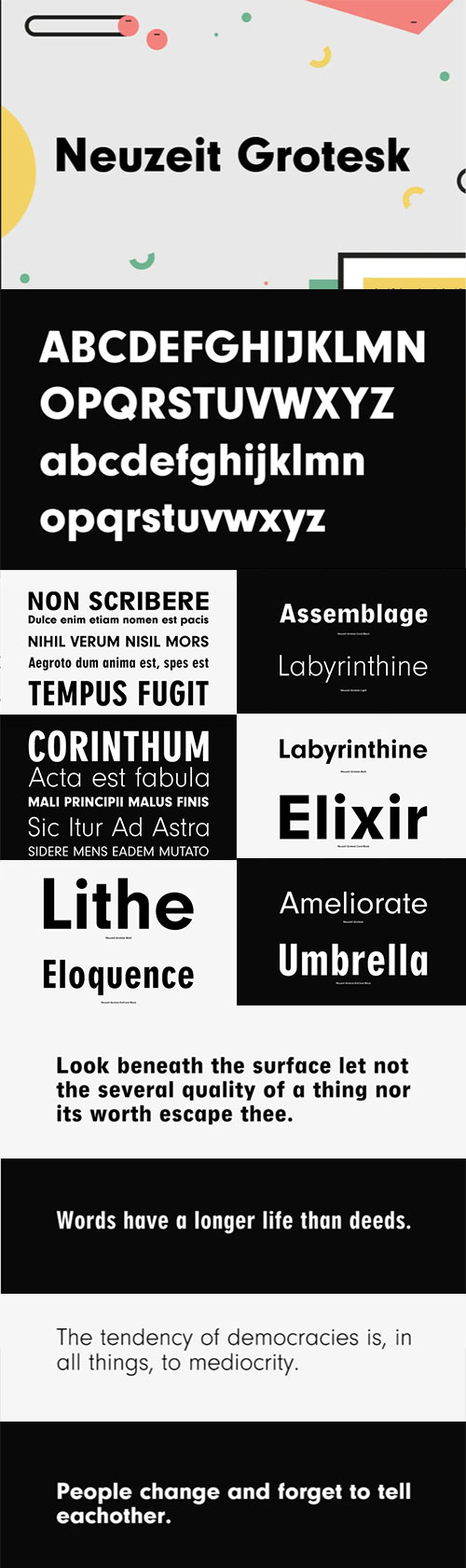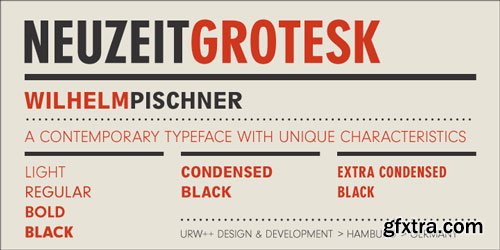
- Neuzeit Grotesk was originally designed by Wilhelm Pischner (1904-1989) and was released by the font foundry D. Stempel in 1928-1939. In 1970, the German Standards Committee advised the standard use of Neuzeit-Grotesk for official signage and traffic directional systems, and the abbreviation DIN was added to the name of the font. DIN" stands for Deutsches Institut für Normung (The German Institute for Industrial Standards). Neuzeit Grotesk was also once the standard in the German printing industry.